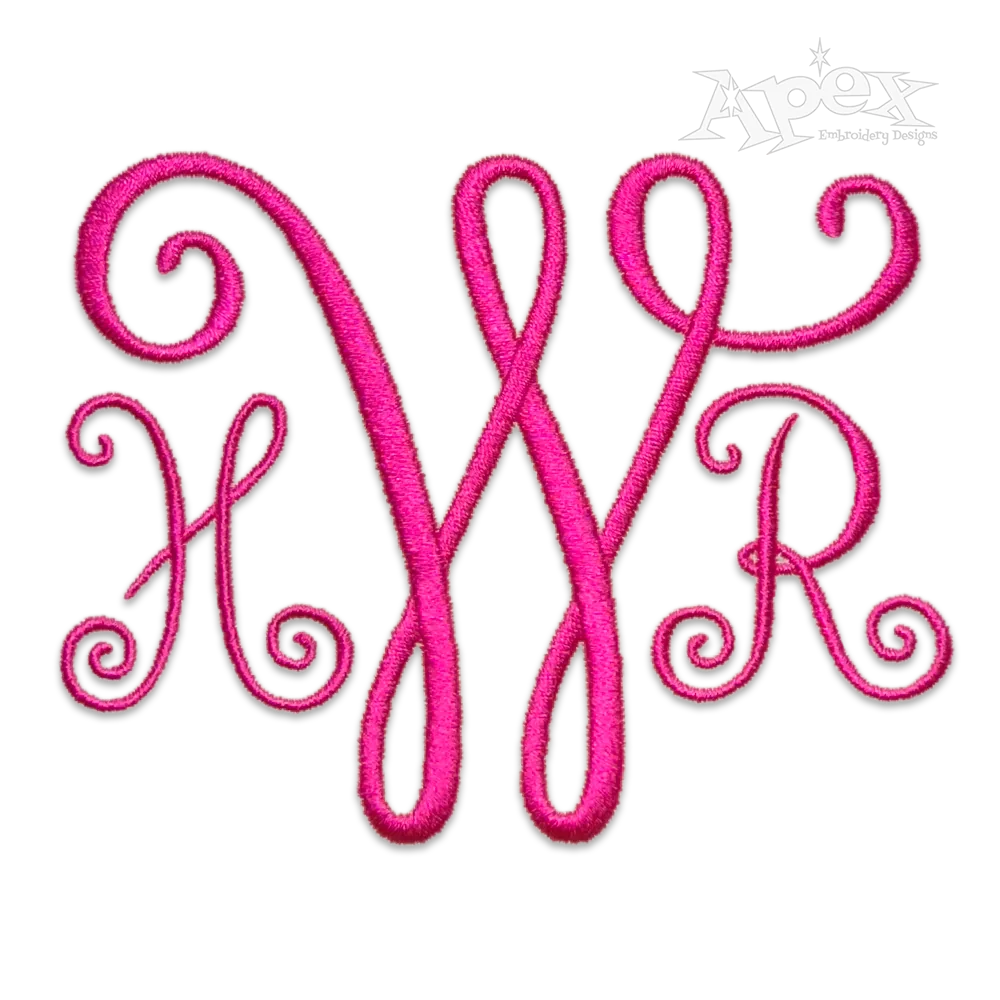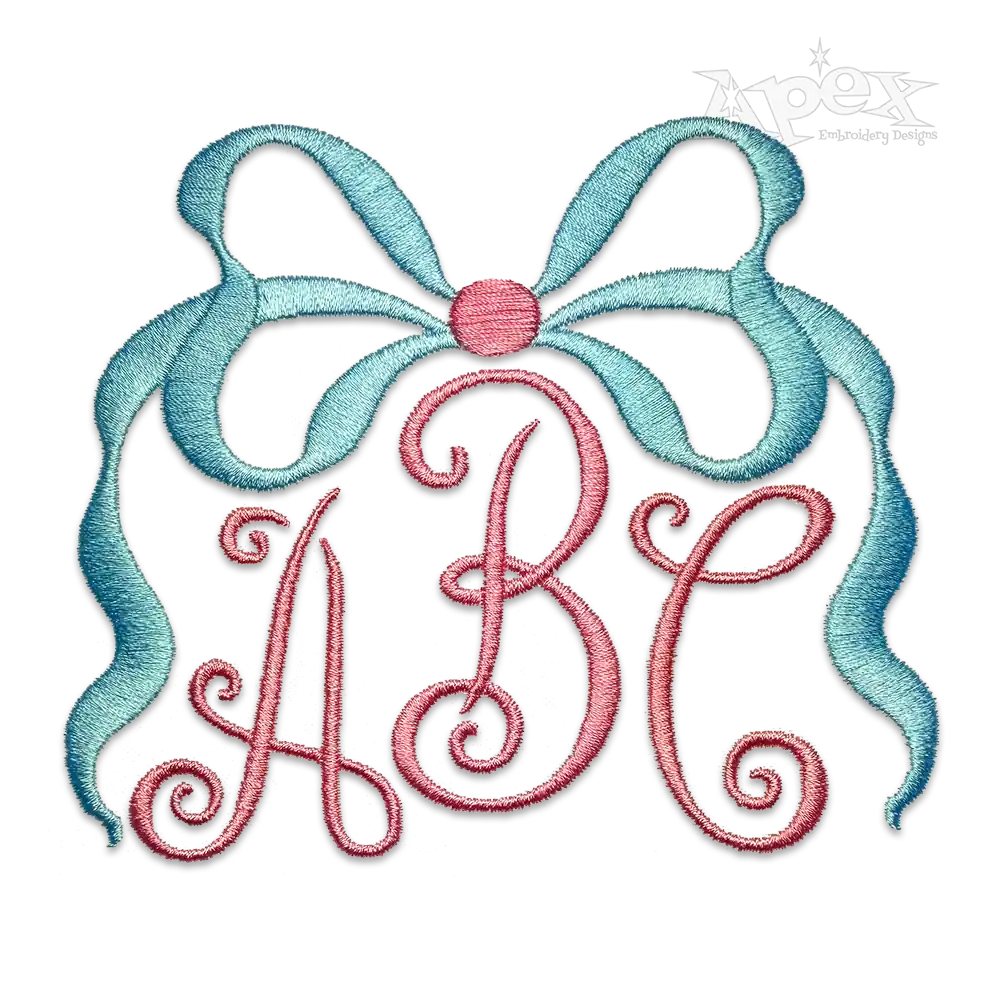
Ava Curlz Embroidery Font
Designed with an infectious sense of whimsy and joy, the Ava Curlz Embroidery Font brings dynamic energy and spirited charm to every stitch out. We envisioned an alphabet that refuses to sit quietly on fabric, instead dancing across the surface with playful loops, coiled flourishes, and full-bodied satin strokes. Whether you are crafting bespoke birthday keepsakes or giving everyday accessories a spirited personal touch, this font captures an exuberant, handcrafted personality that feels effortlessly celebratory.
Ava Curlz Craft & Letterform Details
Digitizing a font with this much rhythmic movement requires careful balance beneath the surface. Each spiral, curl, and looping terminal in Ava Curlz is engineered with bespoke underlay to build a resilient foundation, ensuring the stitch columns remain plump, smooth, and perfectly raised above the base fabric. We calibrated the satin stitch directions to flow naturally through every bend and arc, preserving an immaculate sheen that catches the light as the needle rounds each whimsical curve. The intersections are meticulously clipped and staggered to eliminate bulk, resulting in crisp edges, smooth transitions, and a gloriously tactile finished embroidery that stitches like a dream from start to finish.